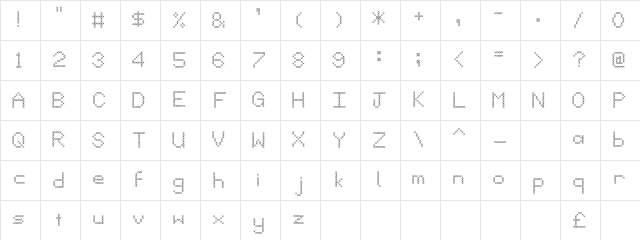
John 315 Regular
Complete John 315 Regular glyph index. Displaying only characters natively supported by John 315 Regular font.
Design Context for John 315
John 315 is a composed and adaptable typeface that performs quietly and consistently across a wide range of design contexts.
Pro Tip: Use John 315 in both headline and body roles to test its range before committing to a single application.